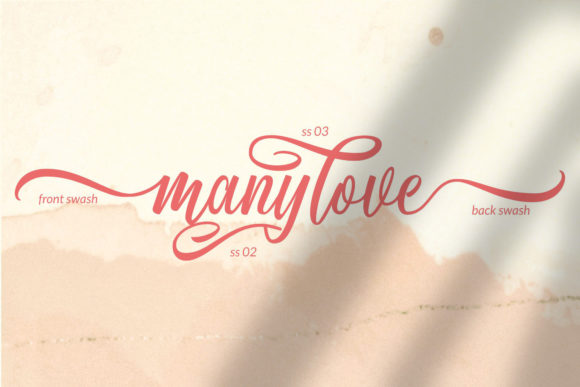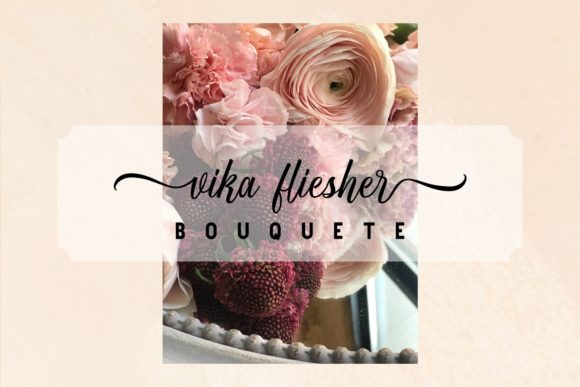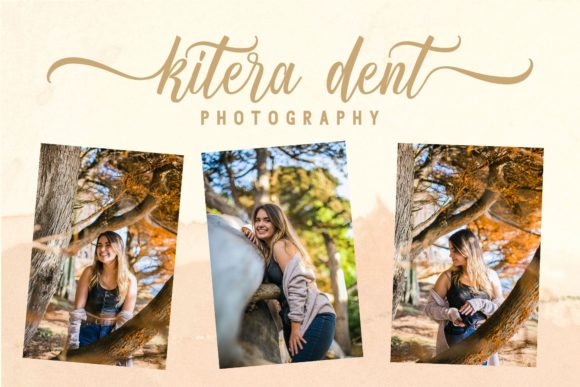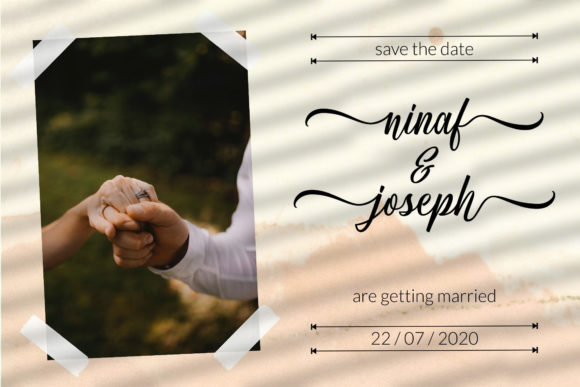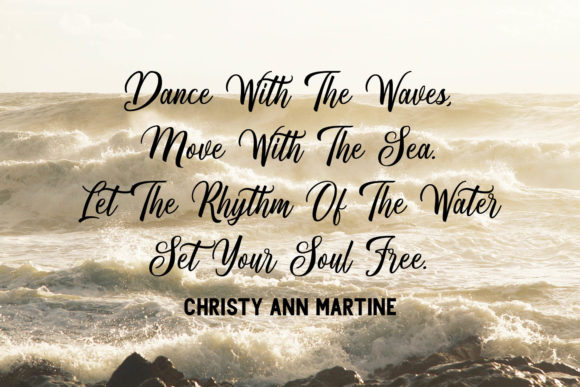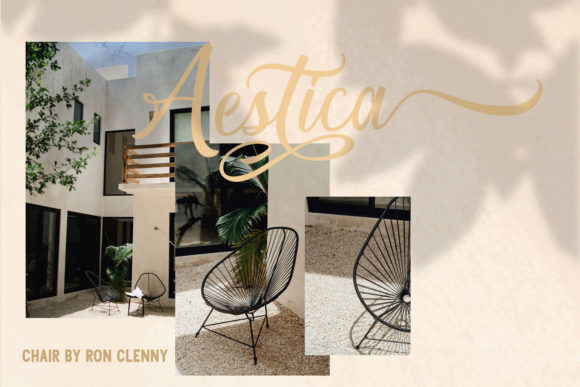
The Perfect Pair: Unlocking the Power of Centie Font
Have you ever stared at a blank page, struggling to bring your creative vision to life? We’ve all been there – the blank page, the racing thoughts, the desire to create something truly special. But what if you had the perfect tool to help you overcome that blank page and unleash your creativity? Enter Centie Font, a stunning duo font that combines the elegance of sans serif with the flair of script.
Centie Font is more than just a font – it’s a game-changer for designers looking to elevate their designs to the next level. With its incredible versatility, it’s perfect for a wide range of projects, from logos and branding to websites and marketing materials. Whether you’re a seasoned pro or just starting out, Centie Font is a valuable addition to your creative toolkit.
Key Features of Centie Font
- Unique Characteristics: Centie Font features a unique blend of modern and traditional design elements, with a focus on legibility and readability.
- Font Weight: The font is available in various weights, including light, regular, medium, and bold, allowing for a range of design options.
Review of Centie Font
Overall, I’d say the Centie Font has some interesting qualities, but it also falls short in some areas. Let’s dive into the details.
- ✨ Unique, playful feel: The Centie Font has a distinct, whimsical style that’s perfect for adding a touch of personality to your designs.
- ✨ Good legibility: The font is clear and easy to read, making it suitable for body text and other areas where legibility is crucial.
- ✨ Wide range of languages: Centie Font supports a broad range of languages, making it a great choice for multilingual projects.
- ⚠️ Limited scalability: While the font looks great at larger sizes, it can become pixelated and lose its charm when scaled down.
- ⚠️ Limited font weight options: The font only comes in a few weights, which can limit its versatility and make it harder to achieve the desired visual effect.
- ⚠️ Not ideal for formal designs: The Centie Font’s playful style may not be suitable for formal or professional projects, where a more traditional or conservative font is often preferred.
In conclusion, the Centie Font is a fun and engaging choice for certain projects, but it may not be the best fit for every design task. With its unique style and good legibility, it’s worth considering for projects that need a playful touch. However, its limitations should be taken into account when deciding whether to use it.
For best results, use the Centie font in bold and uppercase to create a striking visual effect.
Experiment with different font sizes and styles to create visually appealing combinations.
Use the Centie font to add a touch of modernity to your presentations and documents.
The Centie font is ideal for:
- Modern and minimalist designs
Remember to experiment with different font sizes and styles to get the most out of the Centie font.